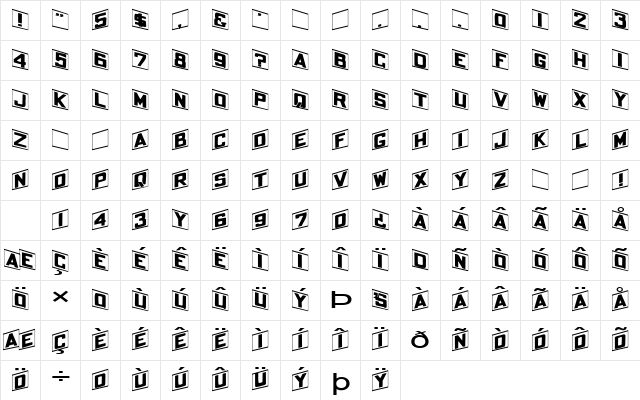
FZ BORDERS 14 EX Normal
Design Context for FZ BORDERS 14 EX
FZ BORDERS 14 EX is a composed and adaptable typeface that performs quietly and consistently across a wide range of design contexts.